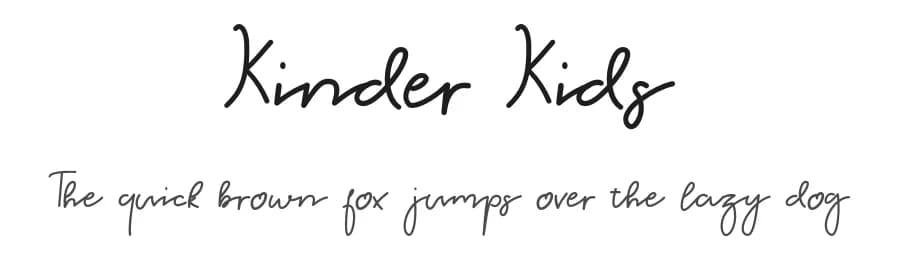
About Kinder Kids Font
Kinder Kids Font is a script font that shines as a display or heading face. Pair it with a clean sans-serif or serif font for body text β the contrast creates a clear hierarchy while the two styles stay balanced and easy to read.
Kinder Kids Font
by Saxofont